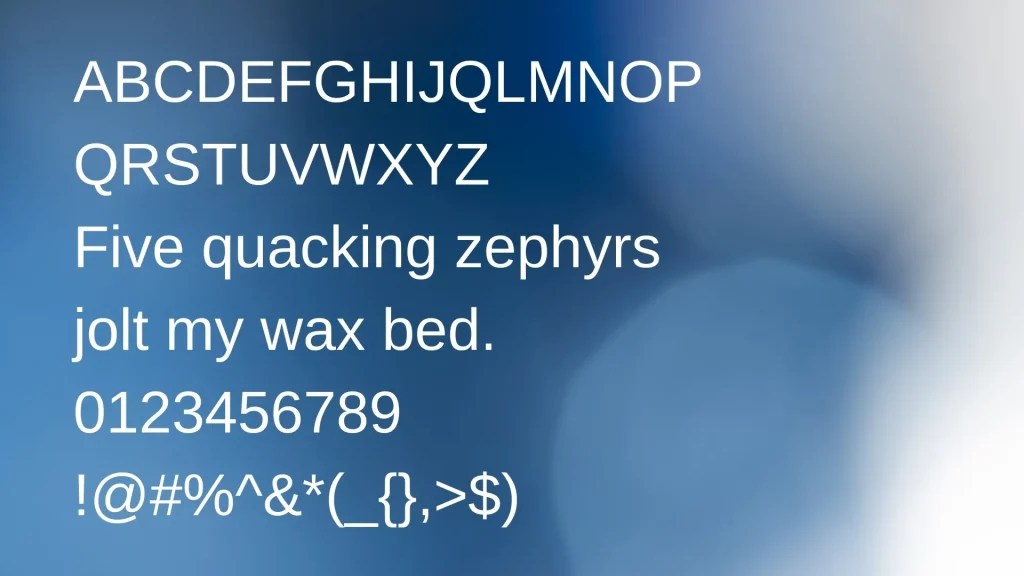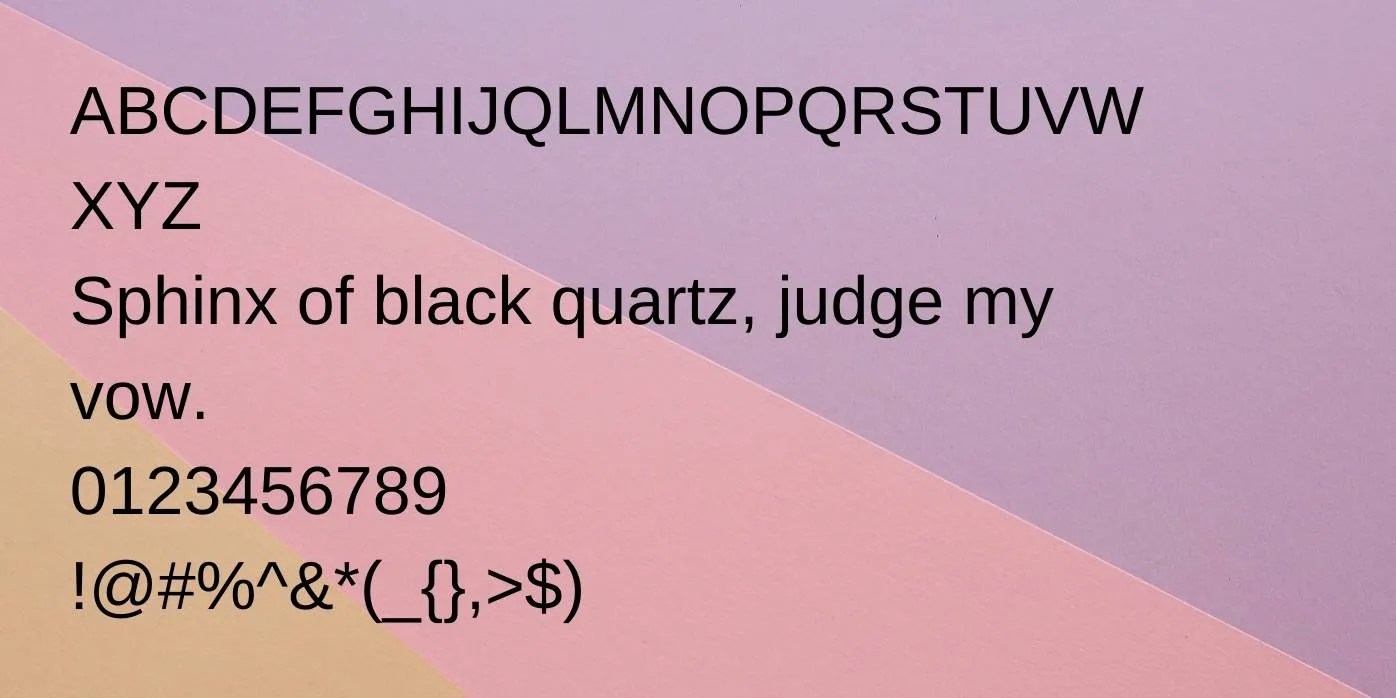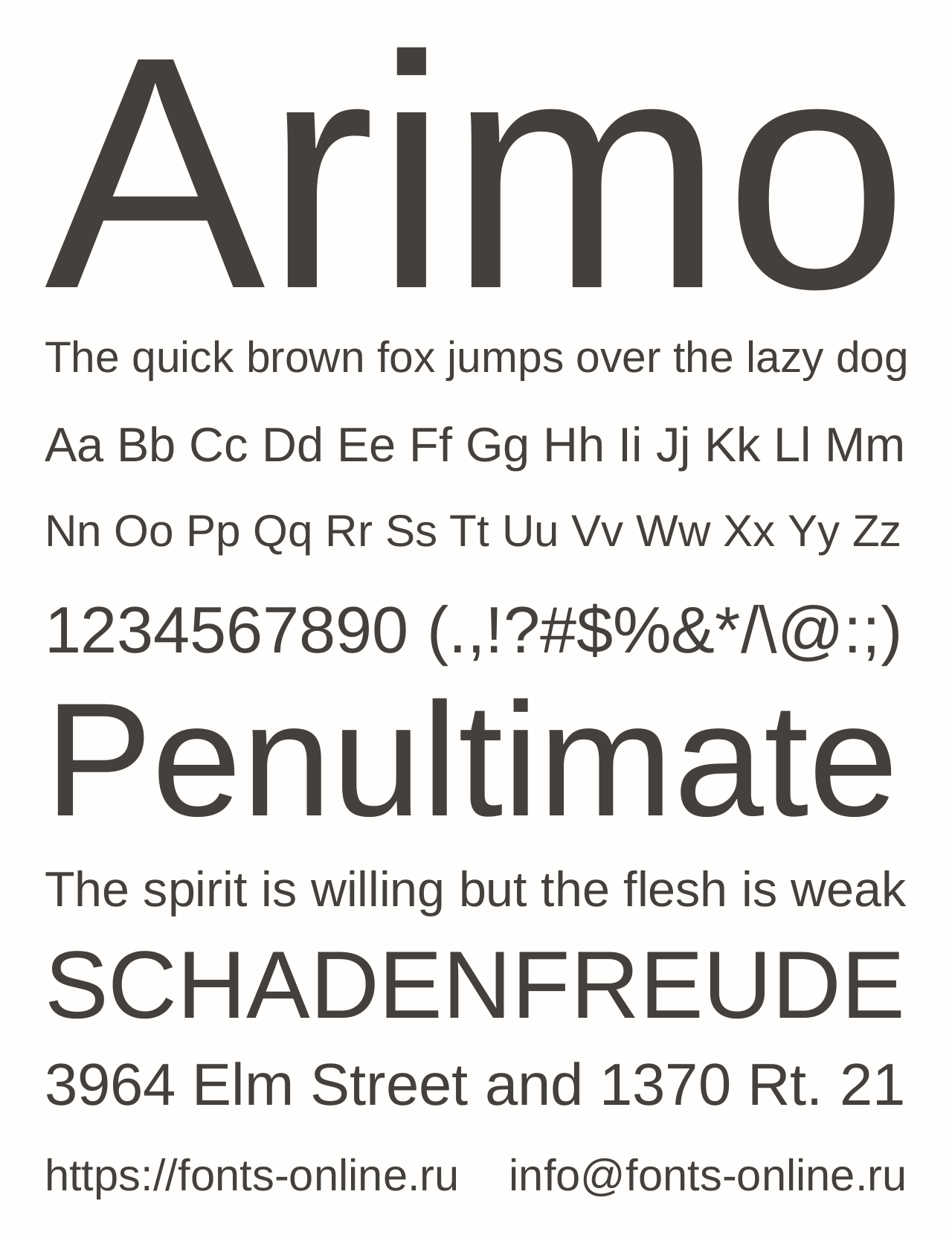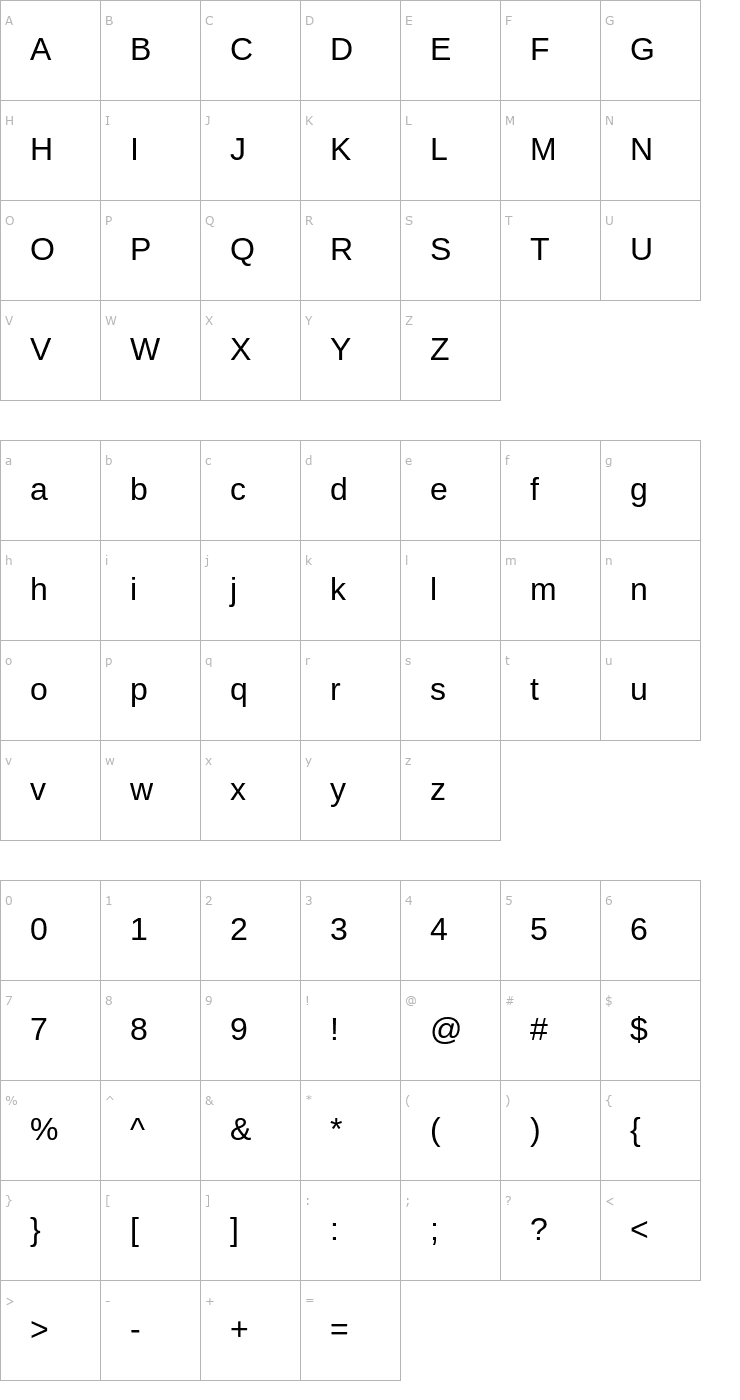
Is Arimo A Good Font . Arimo is actually more well known than you think. Arimo supports a wide range of languages, including but not. Google.fonts has a bunch of great options. Designers choose this pair for its. Good luck on your exams! These slight differences allow the crisp. And it is actually more of a hybrid of arial and segoe ui than a true arial/helvetica knockoff. Arimo pairs really well with montserrat, roboto, nunito, quicksand, and lora. It offers a refreshing design with. Take a look at arimo.
And it is actually more of a hybrid of arial and segoe ui than a true arial/helvetica knockoff. It offers a refreshing design with. Arimo supports a wide range of languages, including but not. Google.fonts has a bunch of great options. Arimo is actually more well known than you think. Arimo pairs really well with montserrat, roboto, nunito, quicksand, and lora. Good luck on your exams! These slight differences allow the crisp. Designers choose this pair for its. Take a look at arimo.
Is Arimo A Good Font Arimo supports a wide range of languages, including but not. These slight differences allow the crisp. Designers choose this pair for its. Arimo pairs really well with montserrat, roboto, nunito, quicksand, and lora. And it is actually more of a hybrid of arial and segoe ui than a true arial/helvetica knockoff. Arimo is actually more well known than you think. It offers a refreshing design with. Arimo supports a wide range of languages, including but not. Good luck on your exams! Google.fonts has a bunch of great options. Take a look at arimo.
Arimo Helvetica free font Is Arimo A Good Font Arimo supports a wide range of languages, including but not. And it is actually more of a hybrid of arial and segoe ui than a true arial/helvetica knockoff. Take a look at arimo. It offers a refreshing design with. Google.fonts has a bunch of great options. These slight differences allow the crisp. Arimo is actually more well known than you. Is Arimo A Good Font.
Arimo School Font Download Free for Desktop & font Is Arimo A Good Font Good luck on your exams! And it is actually more of a hybrid of arial and segoe ui than a true arial/helvetica knockoff. Google.fonts has a bunch of great options. Arimo pairs really well with montserrat, roboto, nunito, quicksand, and lora. Arimo supports a wide range of languages, including but not. Take a look at arimo. Designers choose this pair. Is Arimo A Good Font.
Arimo Font Family · 1001 Fonts Is Arimo A Good Font It offers a refreshing design with. Designers choose this pair for its. Arimo supports a wide range of languages, including but not. And it is actually more of a hybrid of arial and segoe ui than a true arial/helvetica knockoff. Google.fonts has a bunch of great options. Good luck on your exams! Arimo is actually more well known than you. Is Arimo A Good Font.
Download free Arimo Bold font ArimoBold.ttf Is Arimo A Good Font Arimo supports a wide range of languages, including but not. Good luck on your exams! It offers a refreshing design with. And it is actually more of a hybrid of arial and segoe ui than a true arial/helvetica knockoff. Designers choose this pair for its. Arimo is actually more well known than you think. Arimo pairs really well with montserrat,. Is Arimo A Good Font.